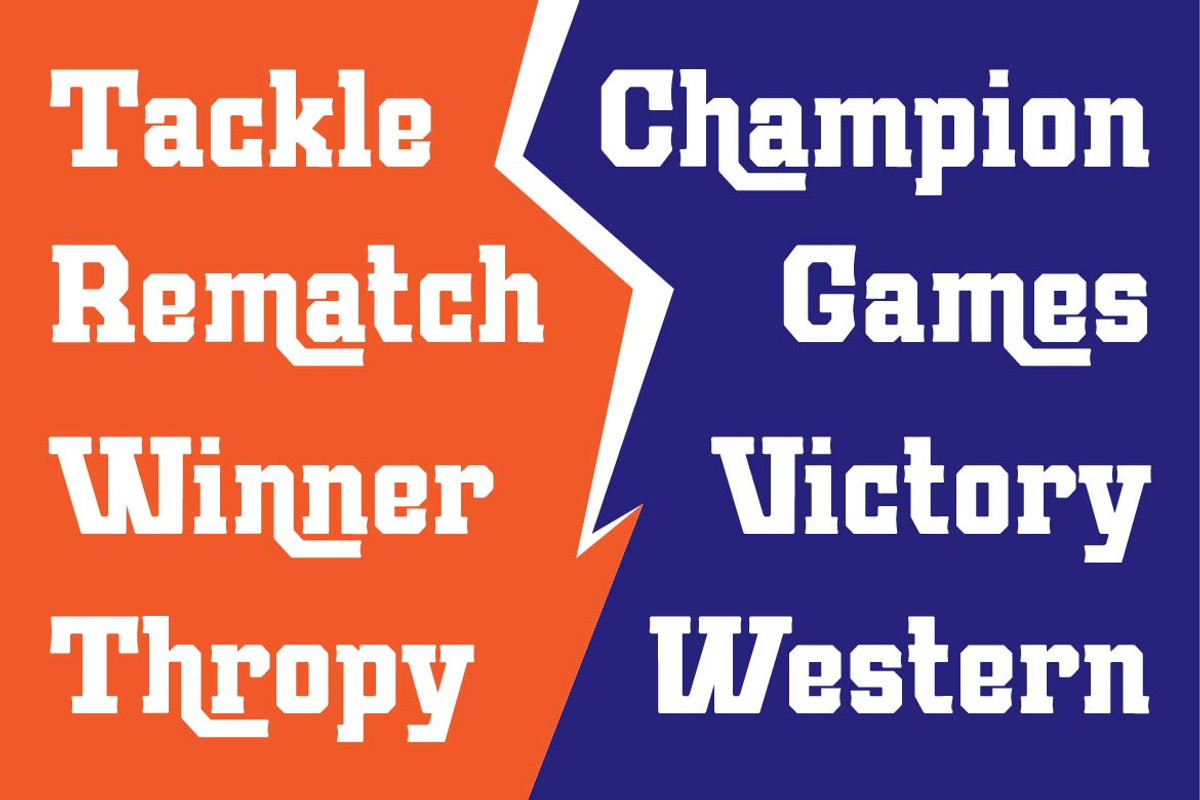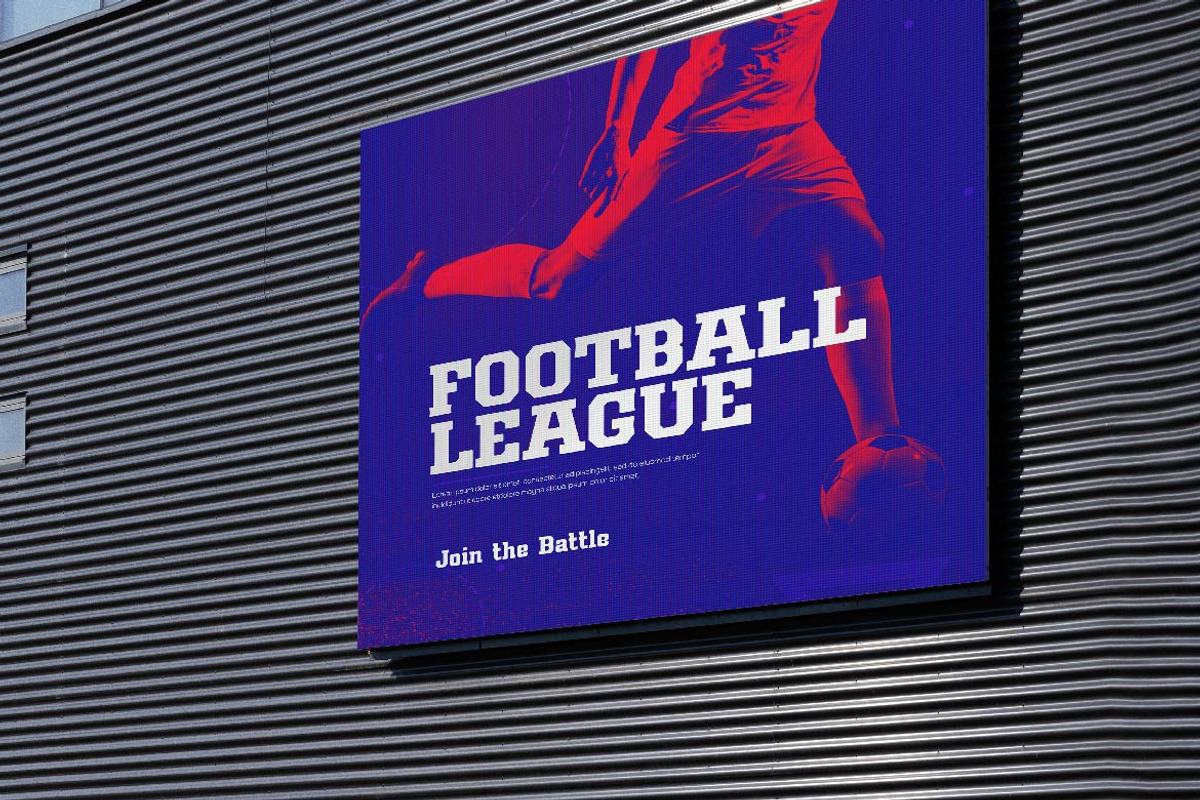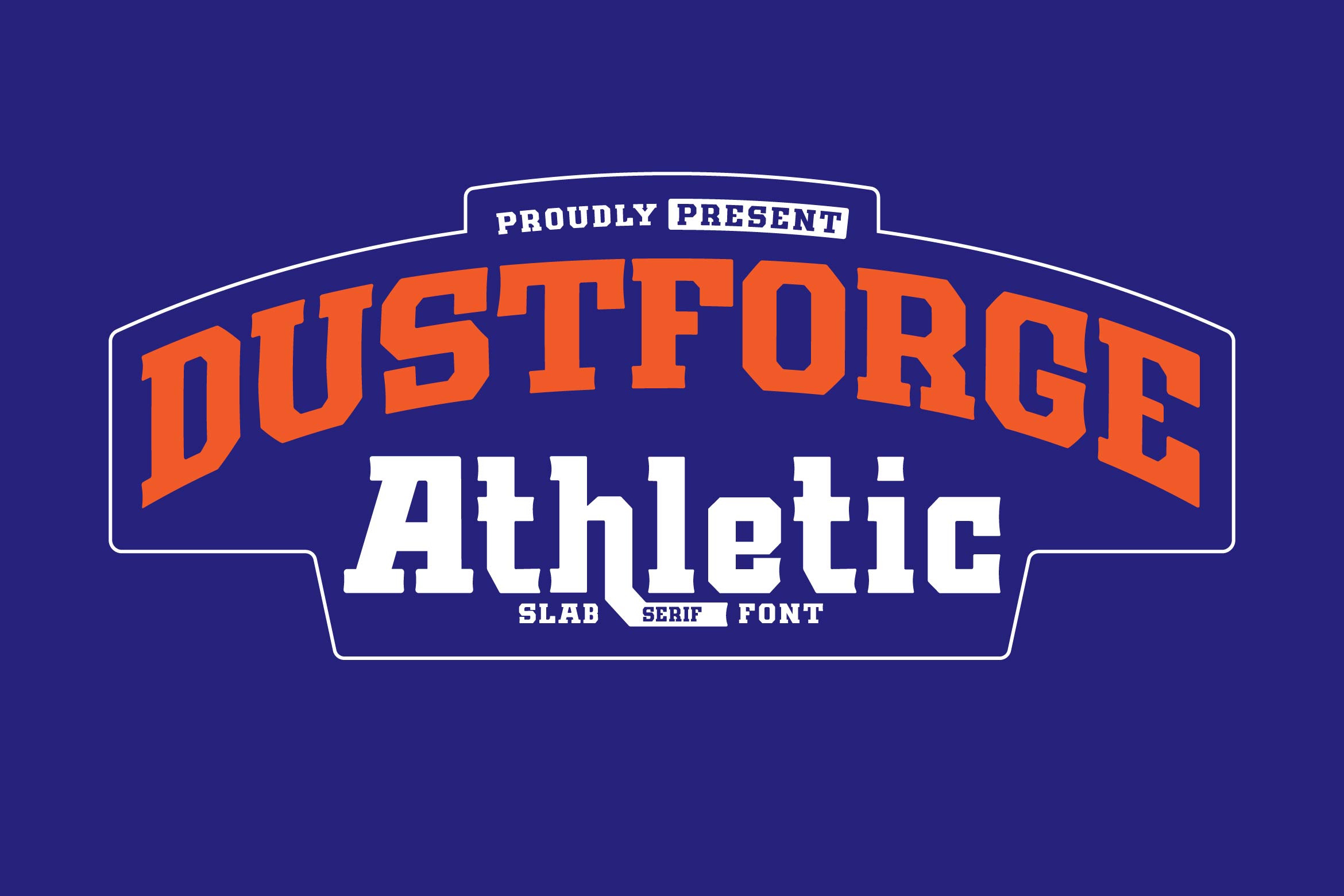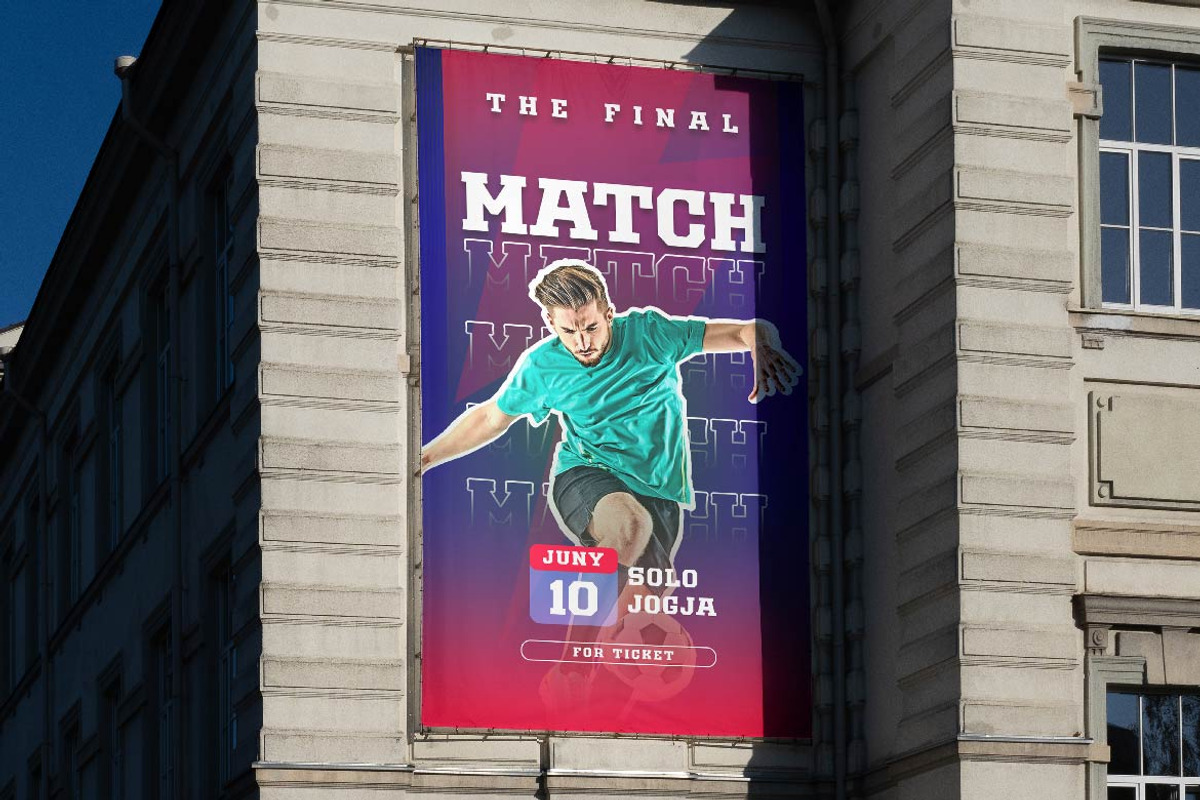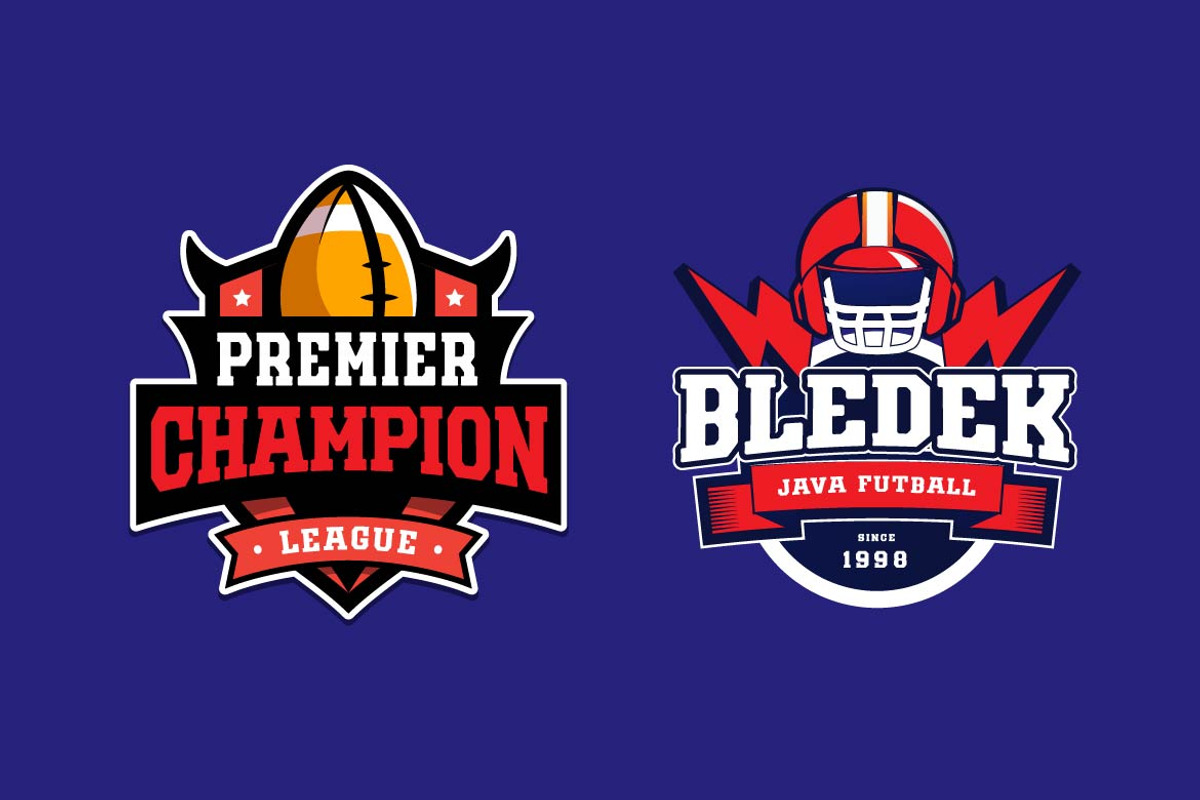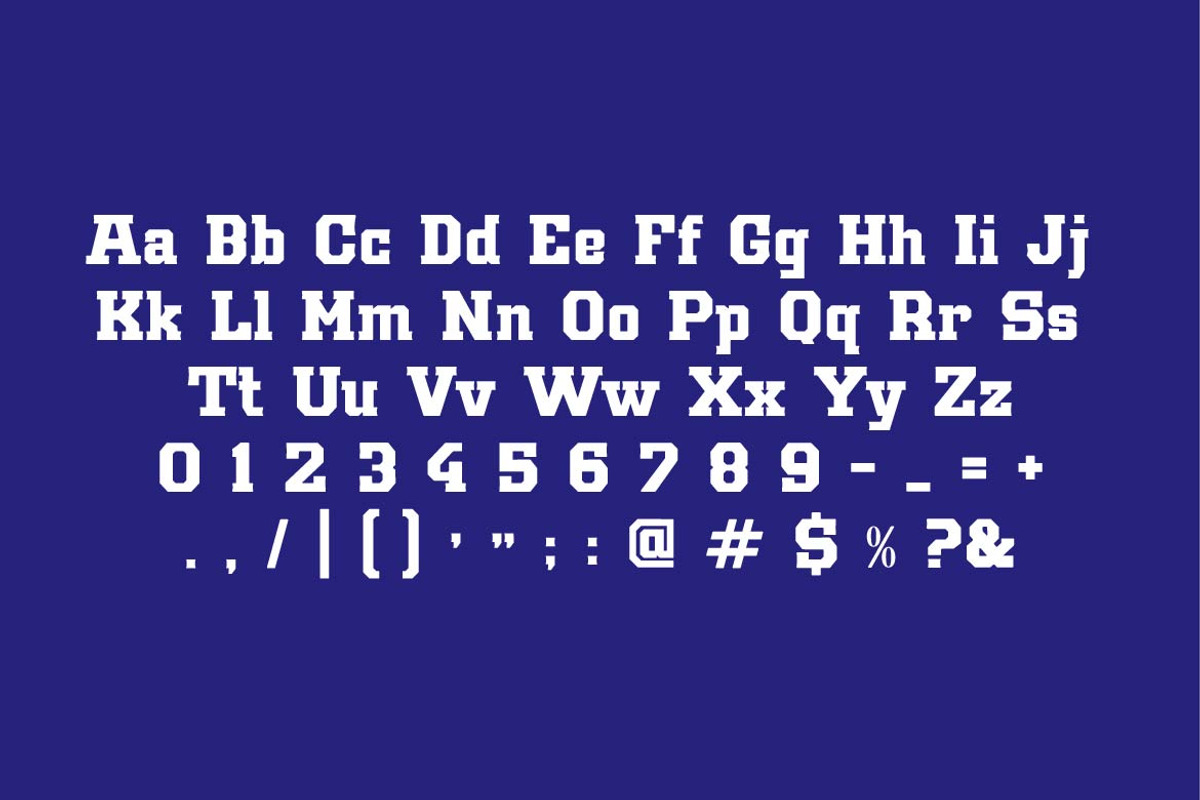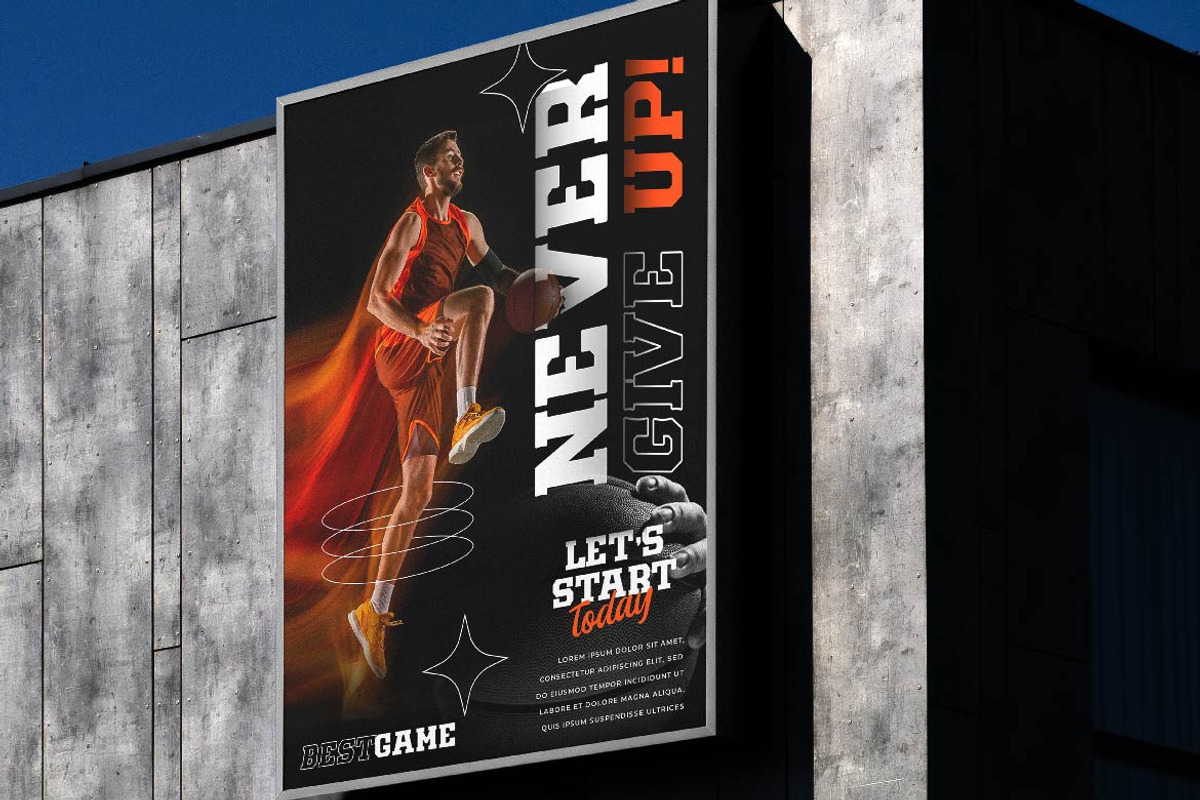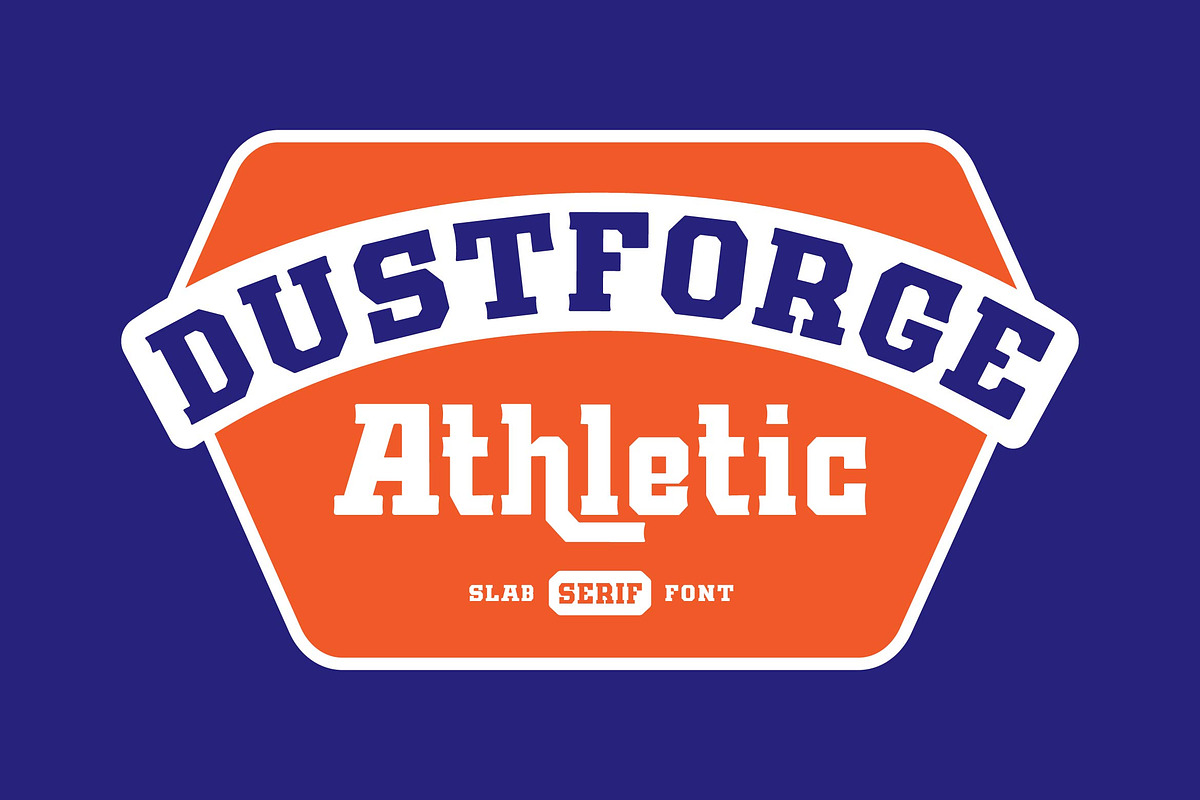
Dustforge Athletic Sports Font
Dustforge is a bold athletic slab serif font designed to deliver strength, impact, and a powerful sports identity. With its sturdy letterforms and classic varsity-inspired style, this font is perfect for sports branding, team logos, posters, and competitive event designs.
Dustforge combines a strong slab serif structure with modern athletic aesthetics, making it ideal for football leagues, basketball events, gym promotions, esports graphics, and sports merchandise. Its bold presence ensures your headlines stand out with confidence and energy.
Whether you're creating posters, banners, or sports marketing materials, Dustforge brings a professional and competitive look to every design.
Uppercase & Lowercase Characters
Strong Slab Serif Style
Athletic / Varsity Inspired Design